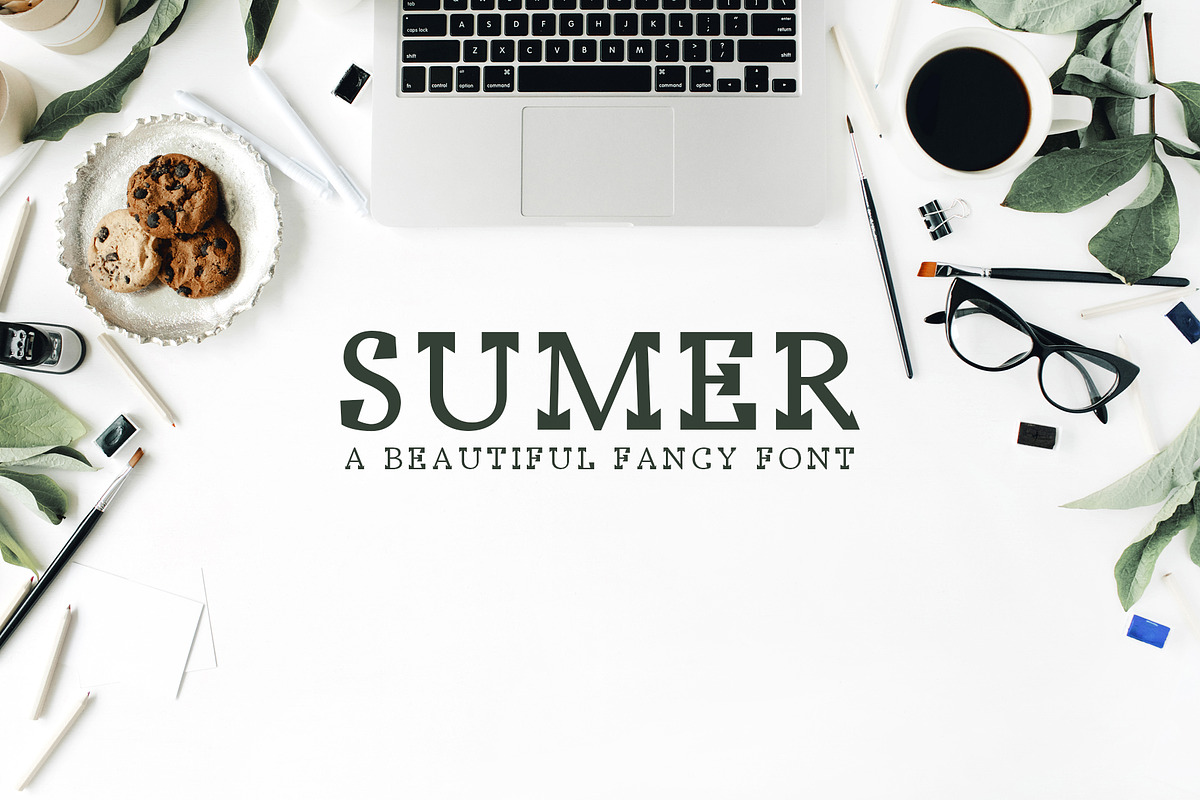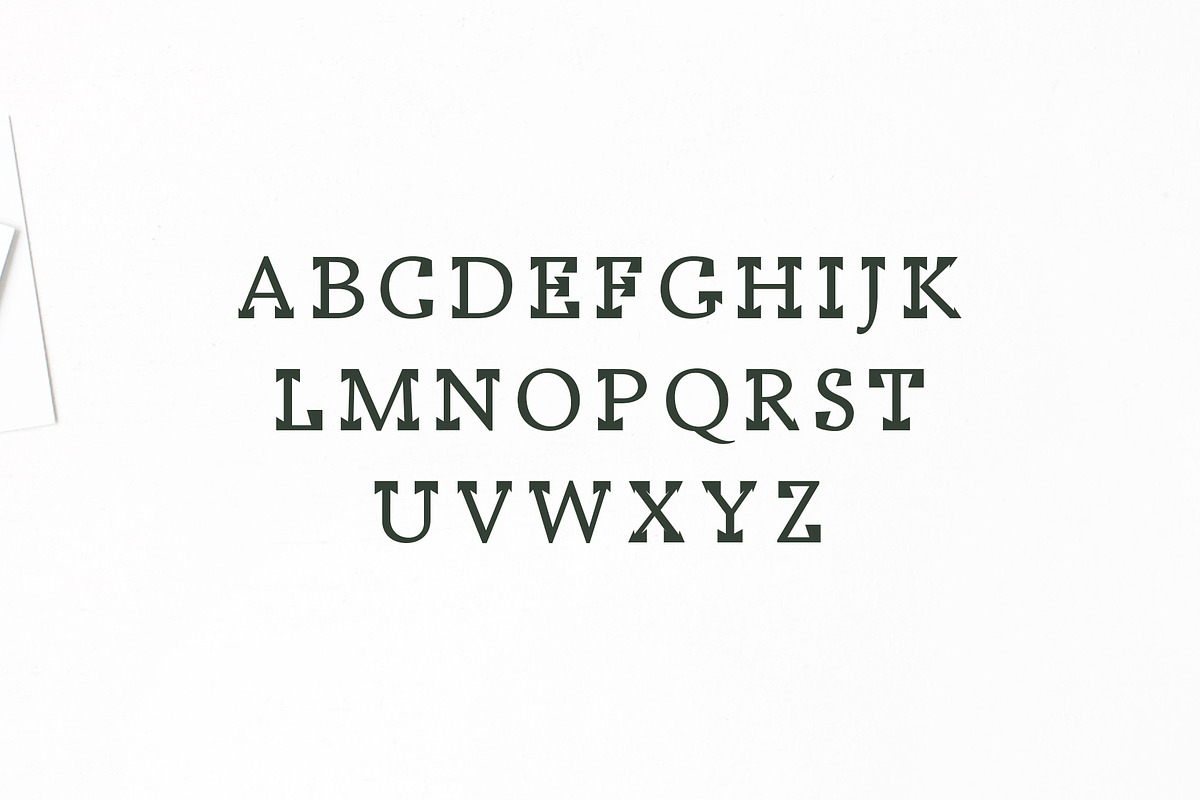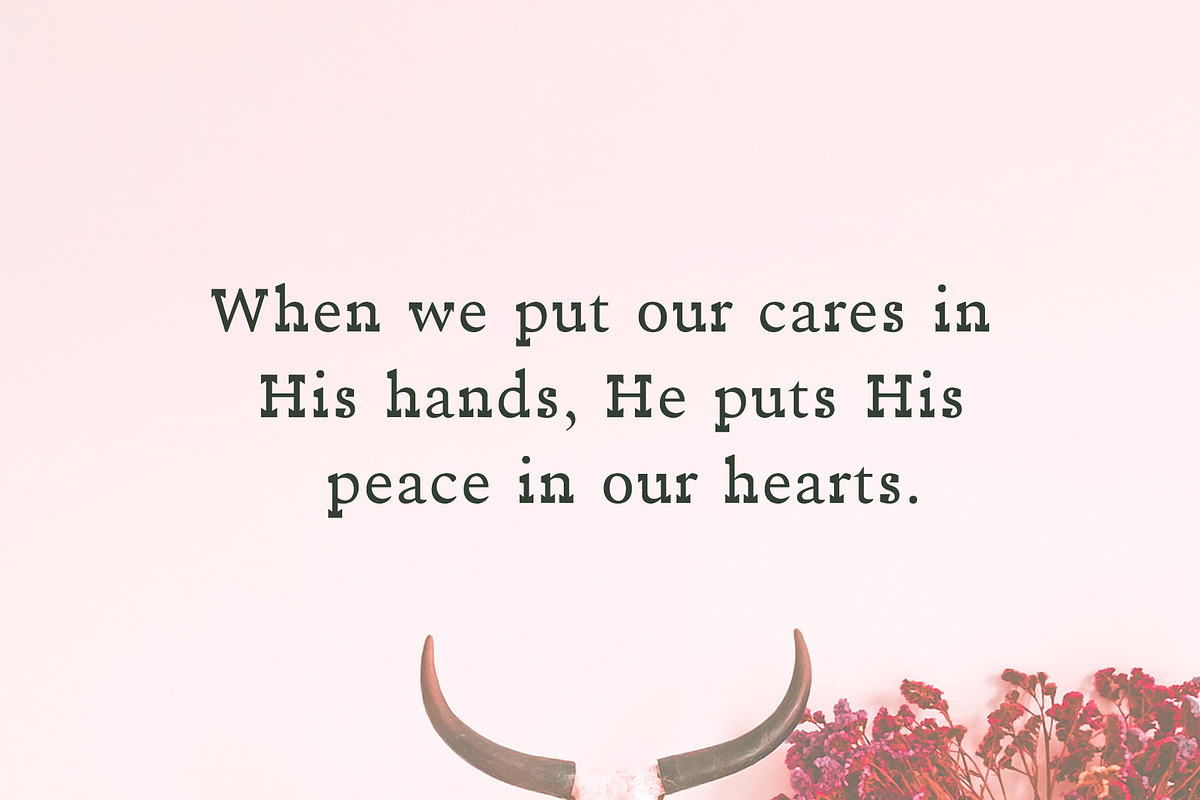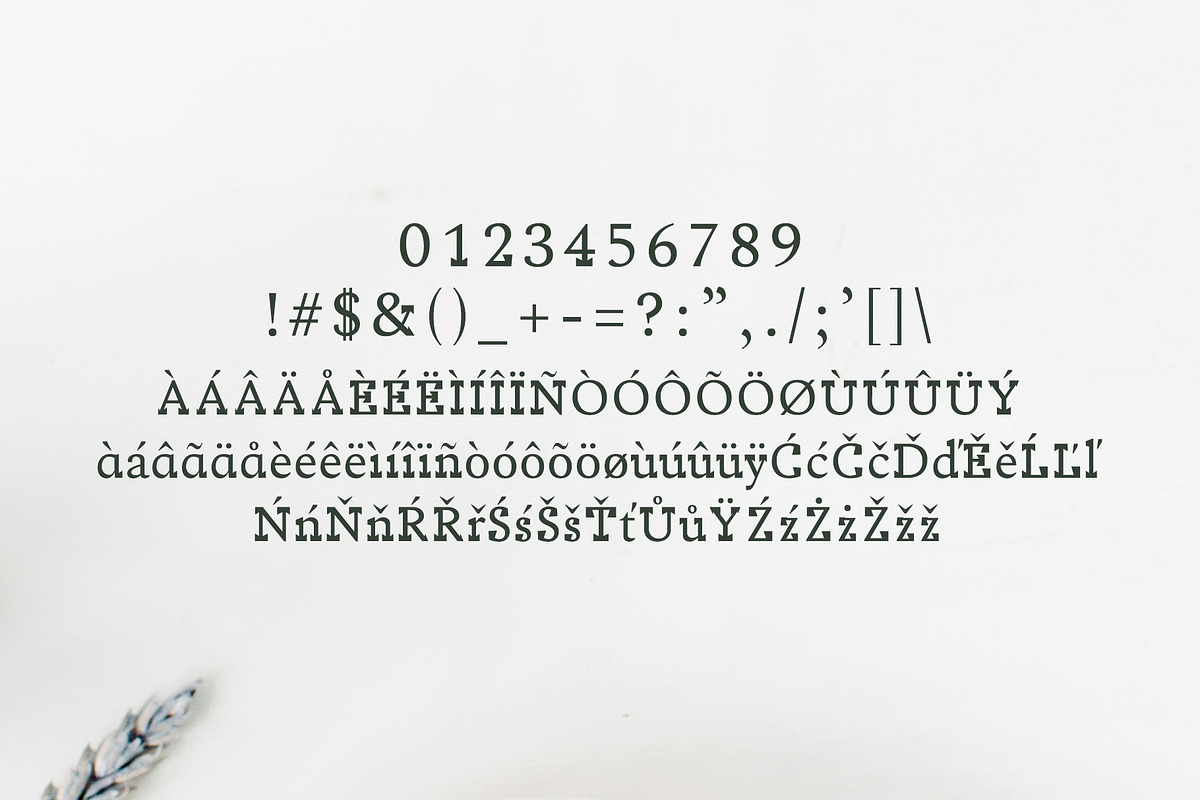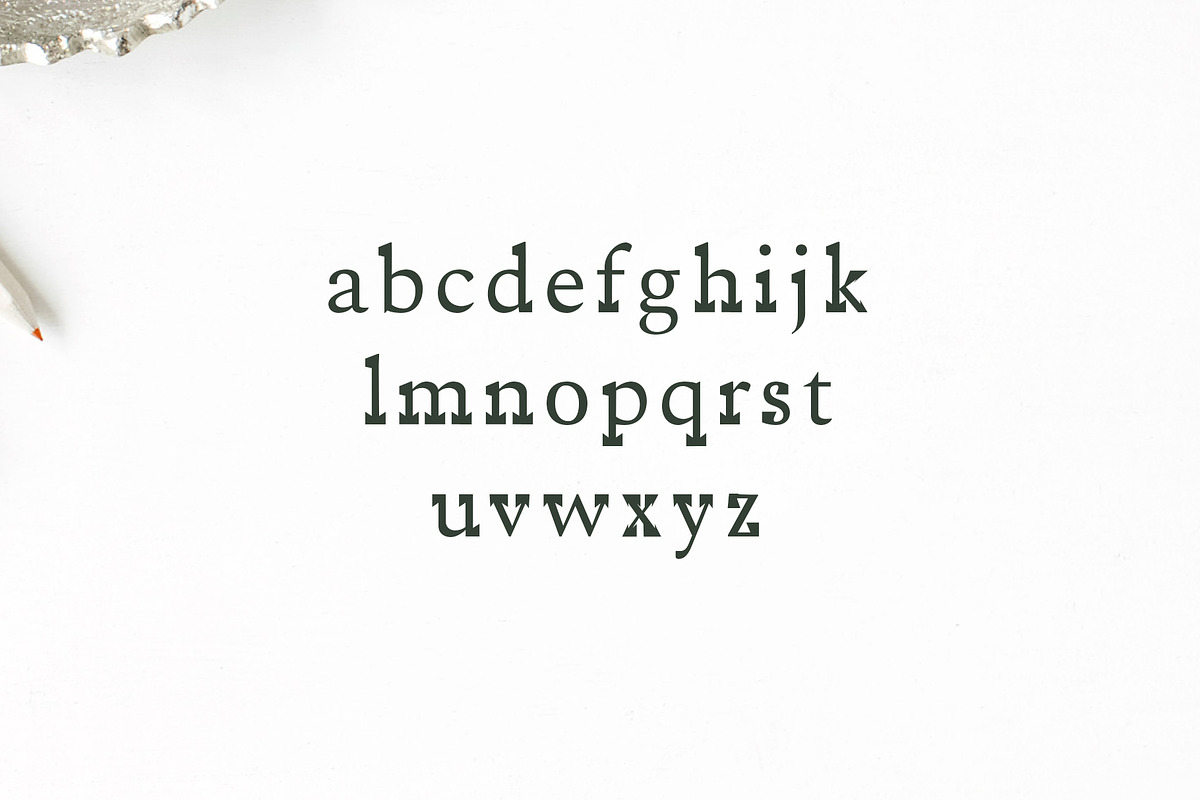
Sumer Fancy 3 Font Family
Perfect for gorgeous logos & titles, layouts & content, or large & small scale, It looks gorgeous in all caps with a wide-set spacing if you want to try a classy look, or beautiful on its own in capital and lowercase letters for something completely timeless.
Font Weight: Regular, Medium, and Bold
Extras: Uppercase Letters, Lowercase Letters, Numbers & Punctuation and Non-English Characters.
- Sumer Font Family is an artistic, beautiful fancy font, which contains 3 weights and it features unique and modern fancy look and feel.